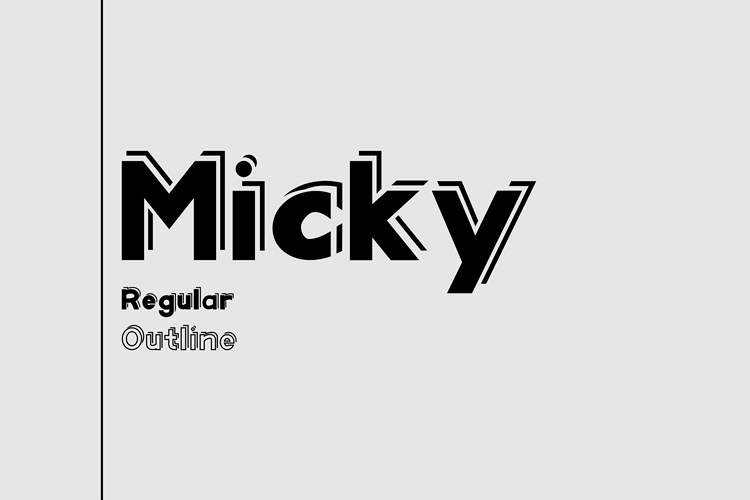
Created By Dieza Design
Micky
Mickey family includes 2 styles. Mickey is most suitable for headlines of all sizes, as well as for text blocks that come in both maximum and minimum variations. The font styles are applicable for any type of graphic design in web, print, motion graphics etc and perfect for t-shirts and other items like posters, logos.
Micky
By Dieza Design